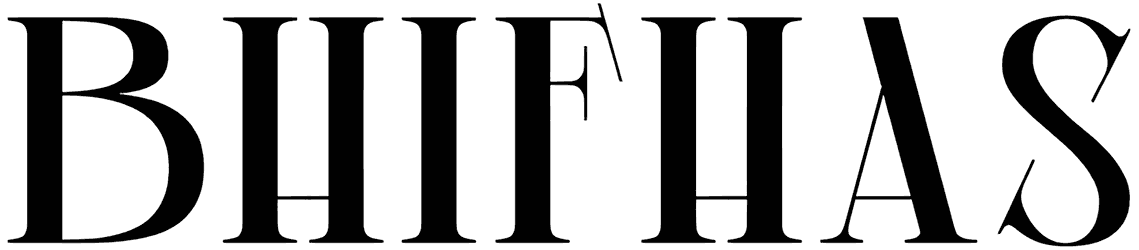
Qedysans Font
Looking for a nice book cover font that’s clean but also fetching enough? Then you’re in luck because that’s literally the description of Qedysans. Better yet, there’s even a slight contrast between the lines that only attaches more significance to your words.
As a luxury font with ligatures and other playful decorative elements in its structure, Qedysans will show you what the perfect branding design looks like, especially for home furniture, dance classes, pottery, and other luxury businesses as such.
Designed by: Alit Design